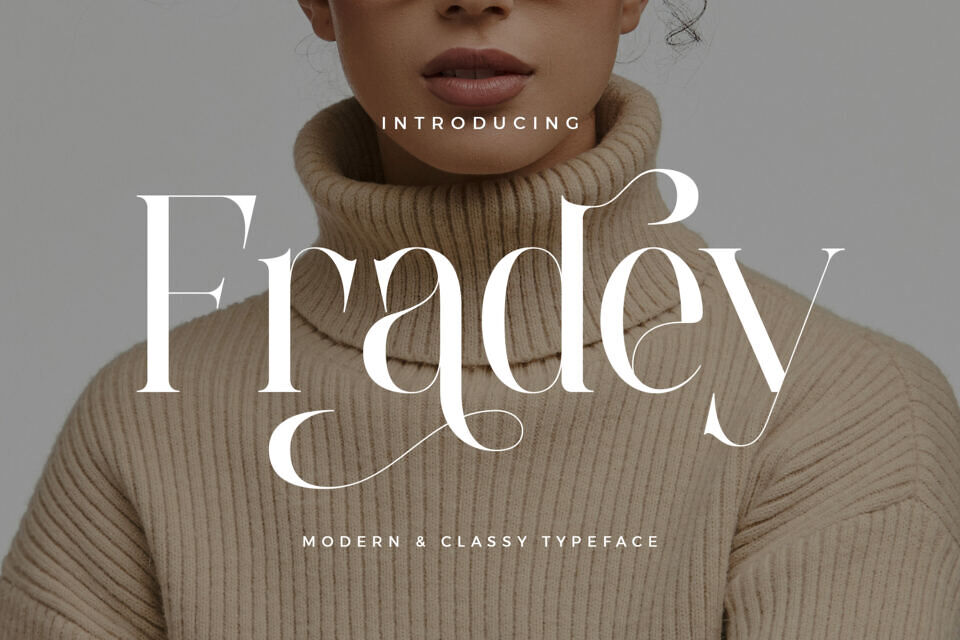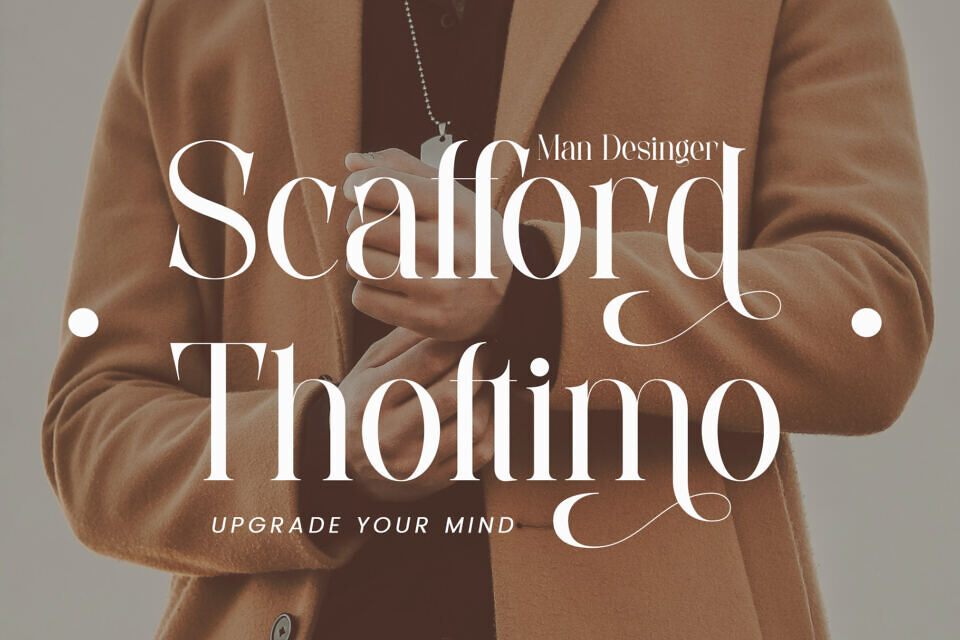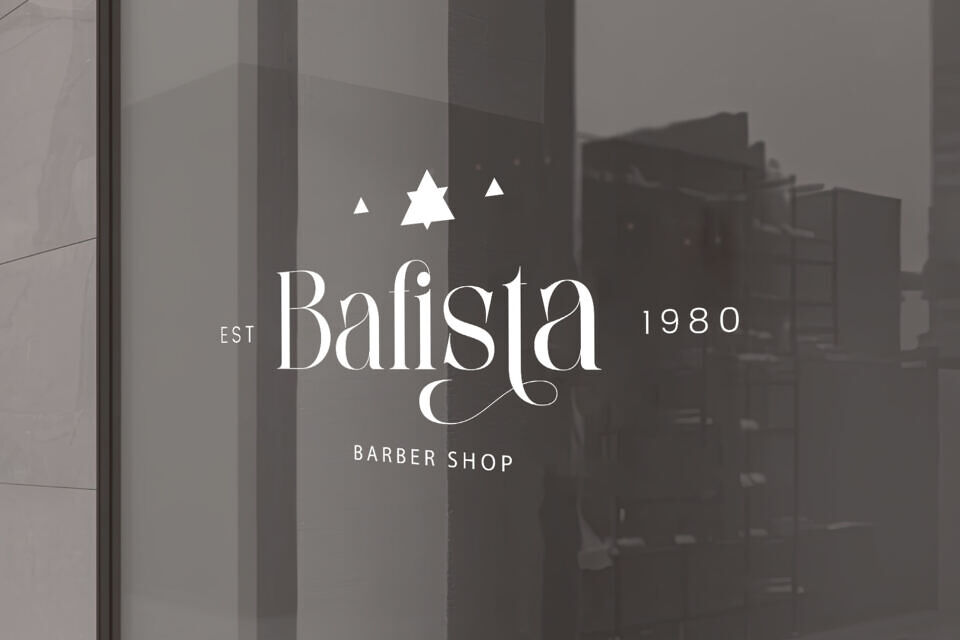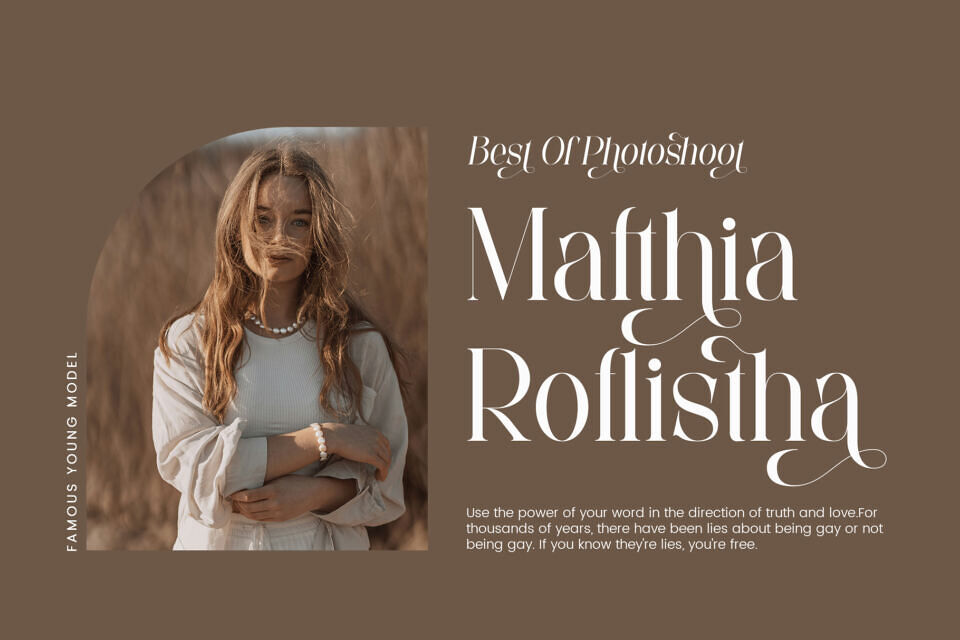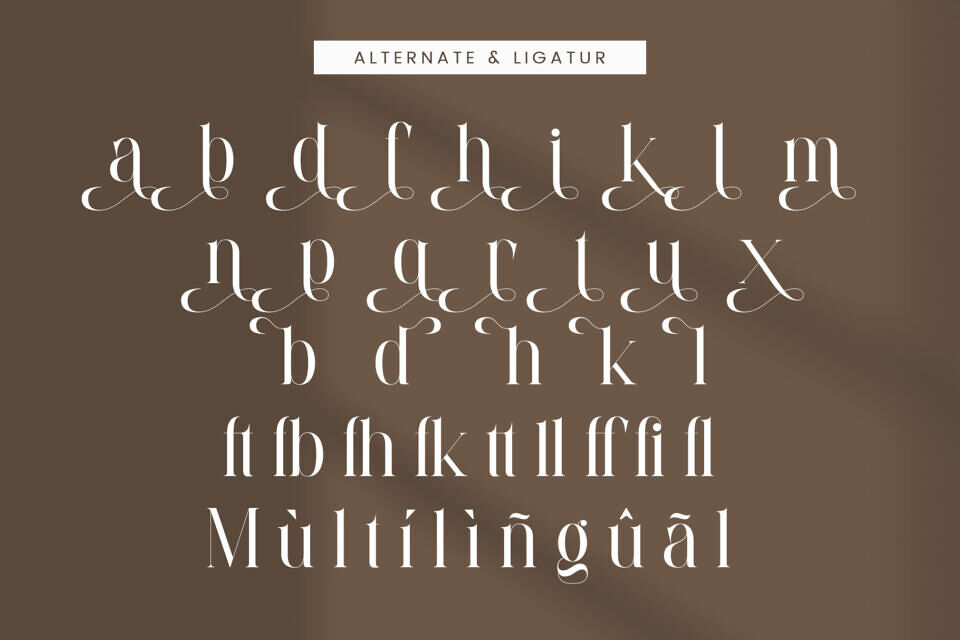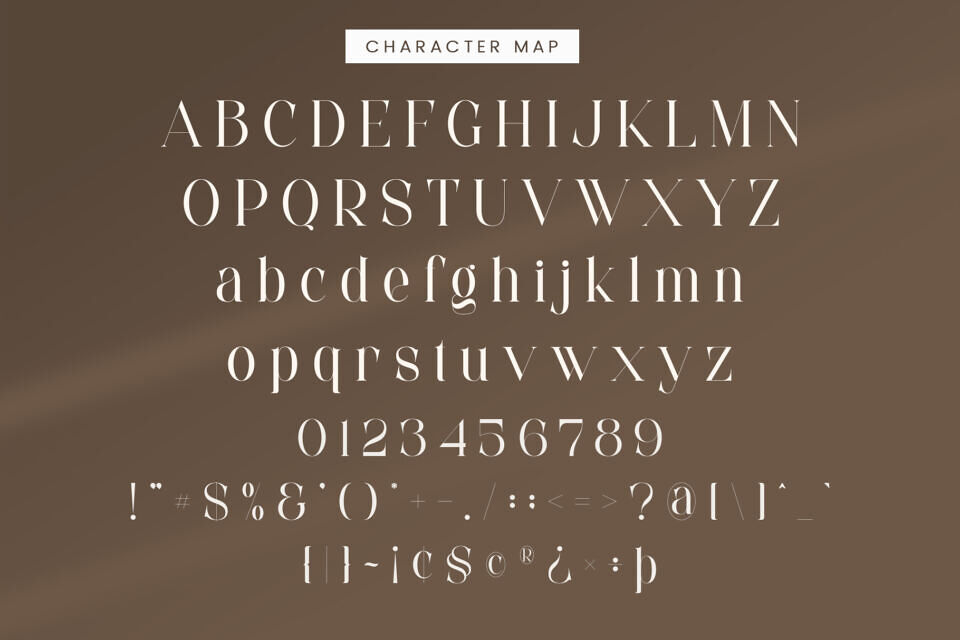
Fradey Font
Fradey is a sophisticated serif typeface that blends high fashion with modern elegance. Featuring graceful curves, refined contrast, and stylish ligatures, this font is perfect for branding, editorials, luxury packaging, magazine titles, or anything that calls for a classy, upscale touch.
Its beautiful alternates and unique letterforms add a timeless charm while maintaining strong readability. Whether you’re creating a fashion logo or an elegant wedding invitation, Fradey delivers effortless elegance with a modern twist.